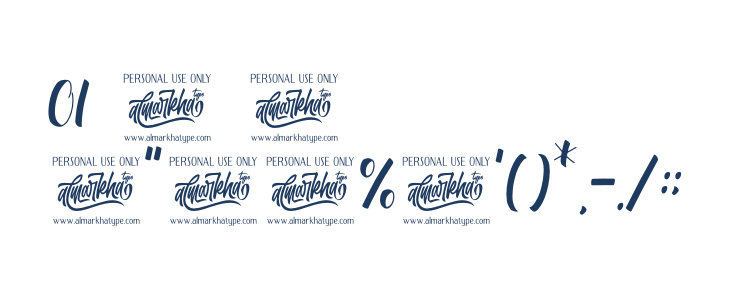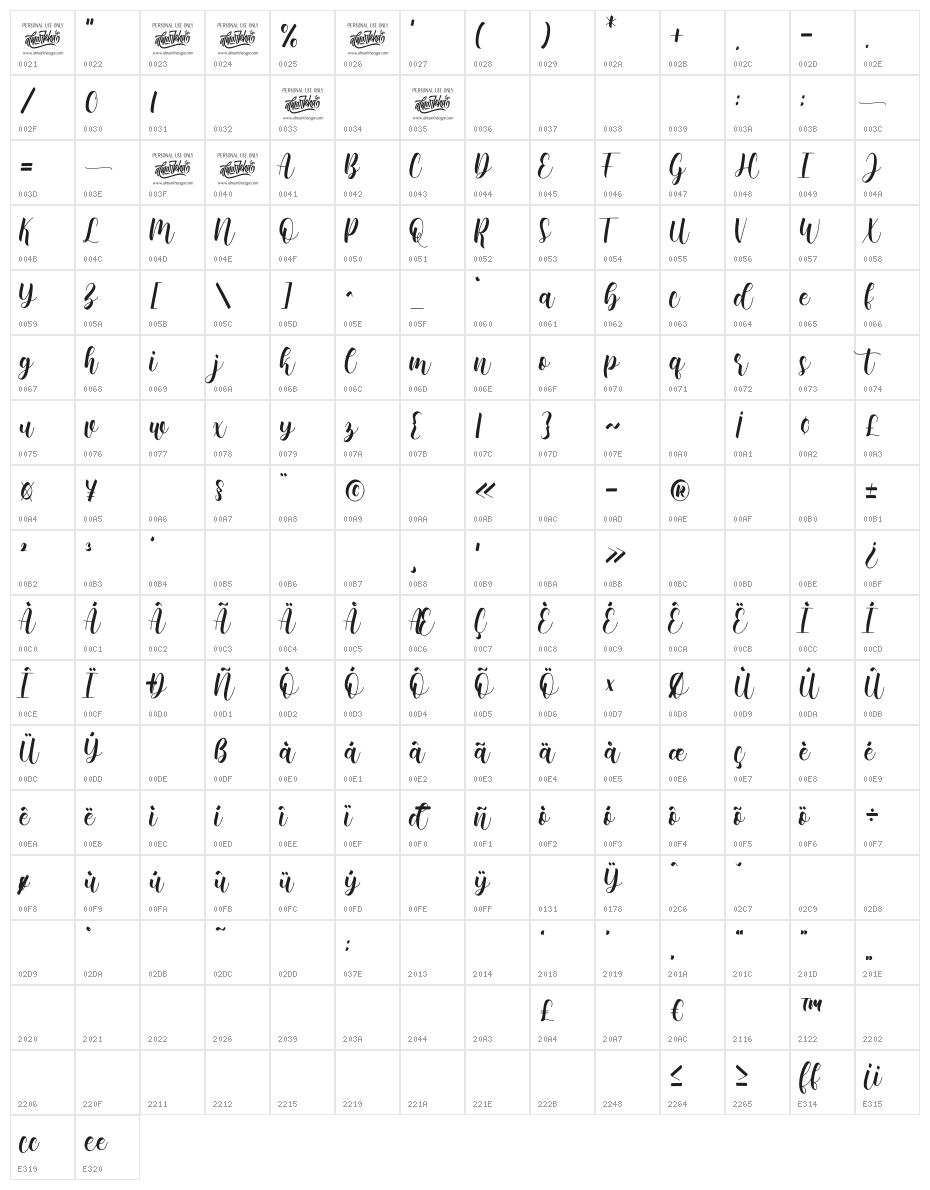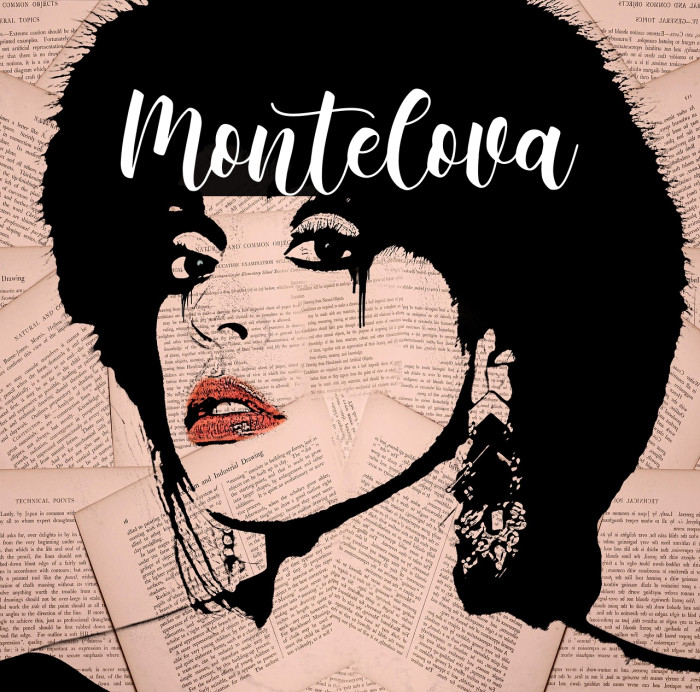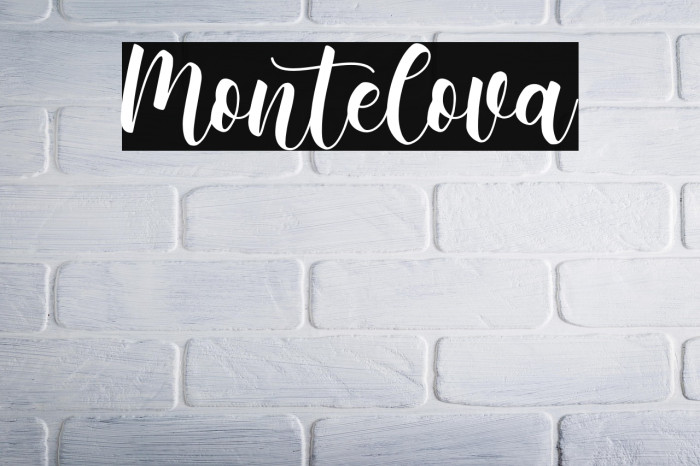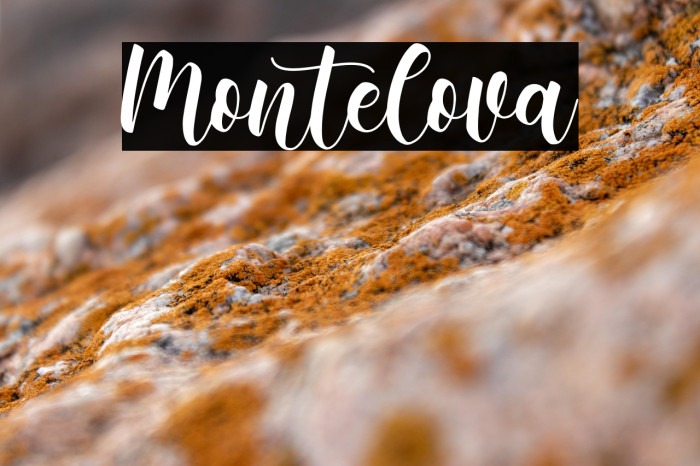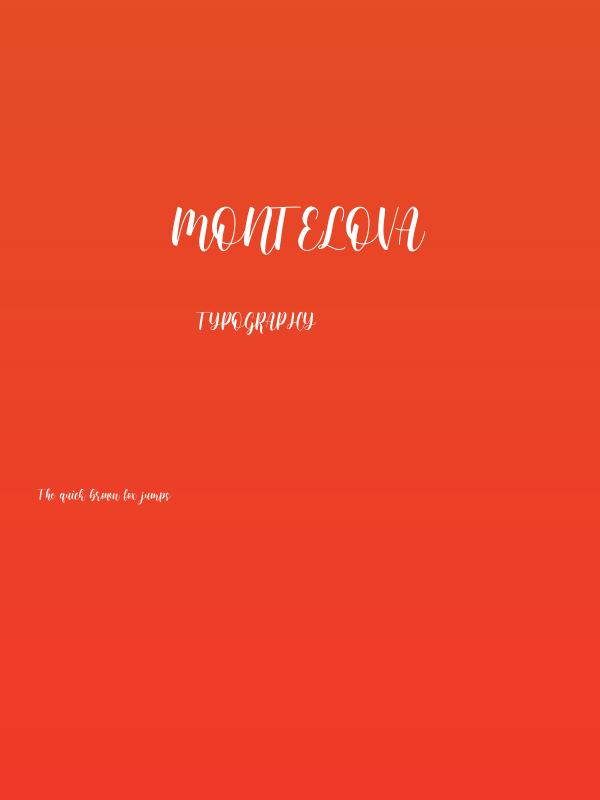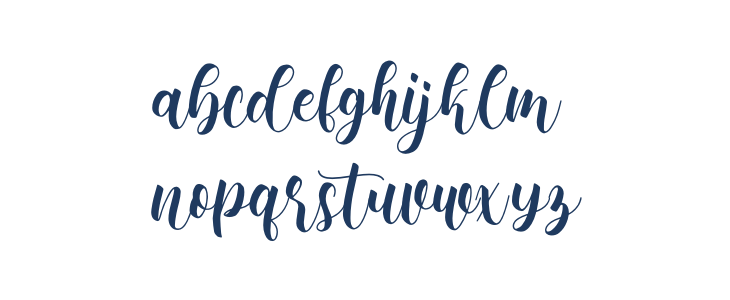
Montelova Font
Montelova Description
This font features a flowing, cursive style with elegant loops and swashes, giving it a handwritten appearance. The uppercase letters are bold and expressive, with varying stroke widths that add a dynamic feel. Lowercase letters maintain a consistent style, with smooth curves and a slight slant, enhancing readability while retaining a decorative flair. The numerals and special characters are crafted with the same attention to detail, ensuring a cohesive look across all text. This font's artistic nature makes it suitable for creative and expressive design projects.